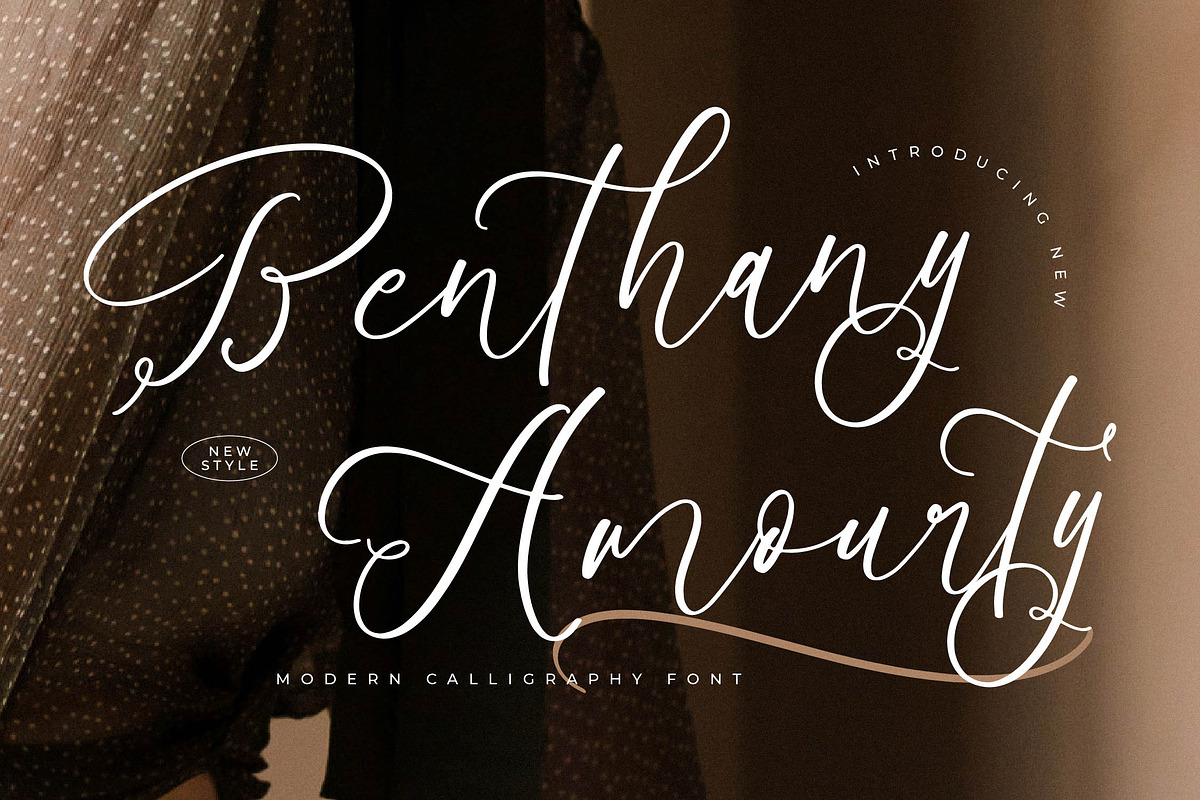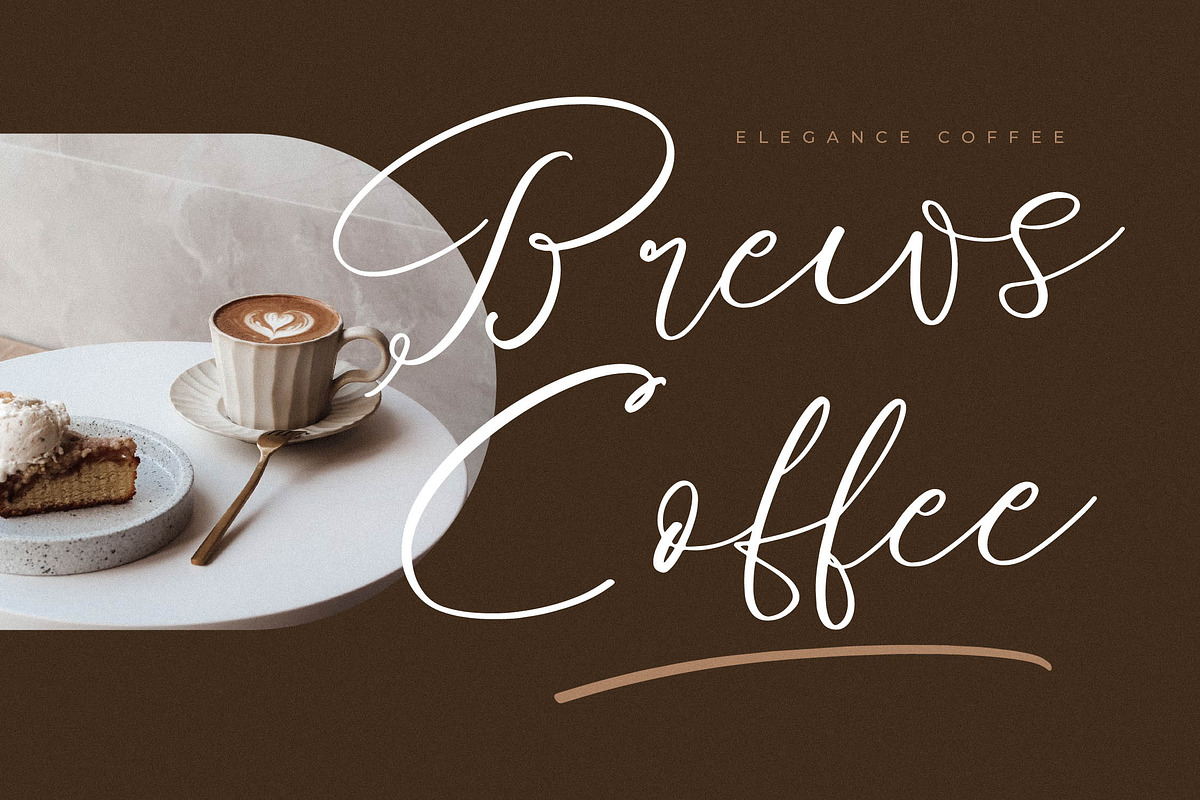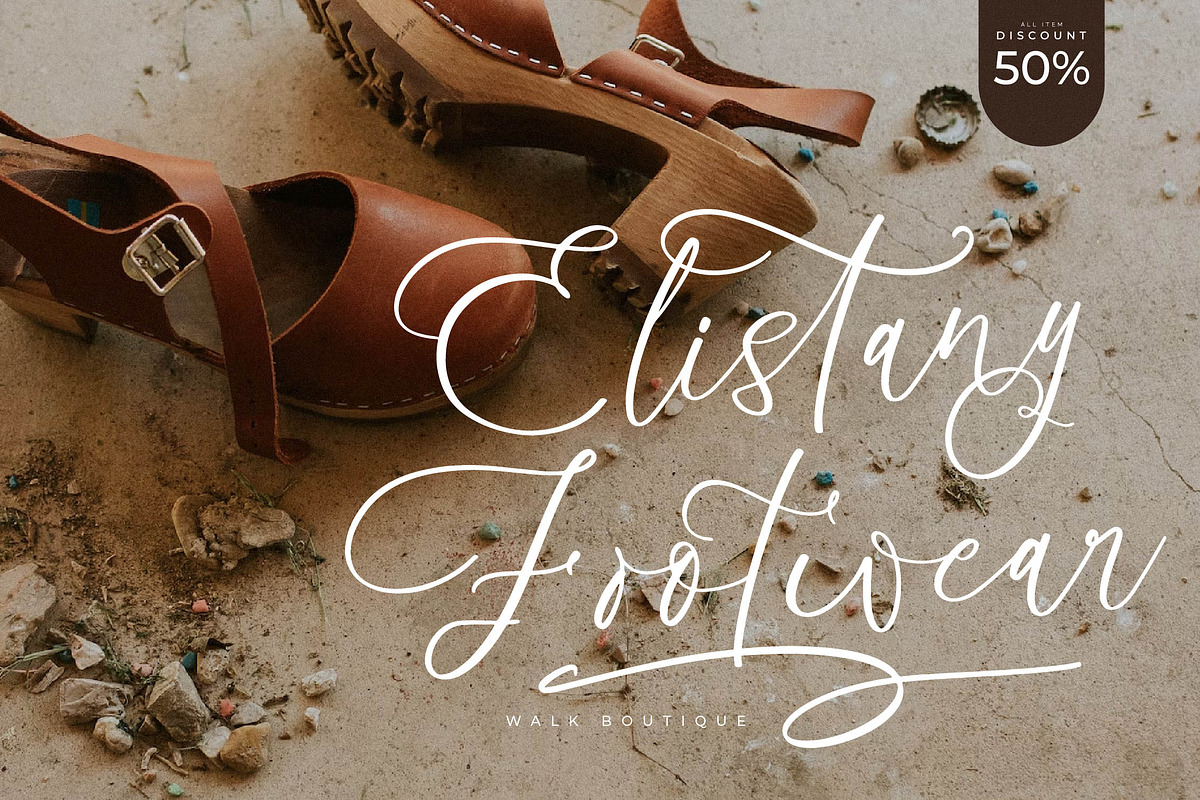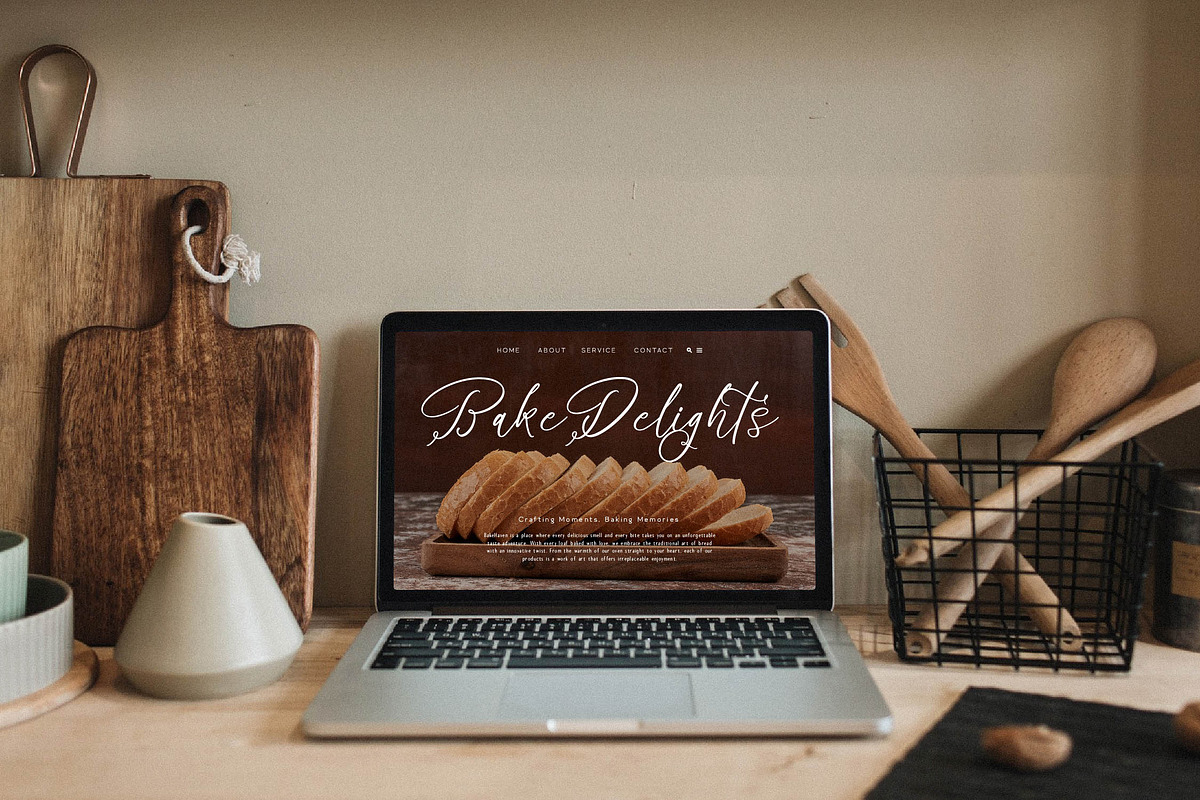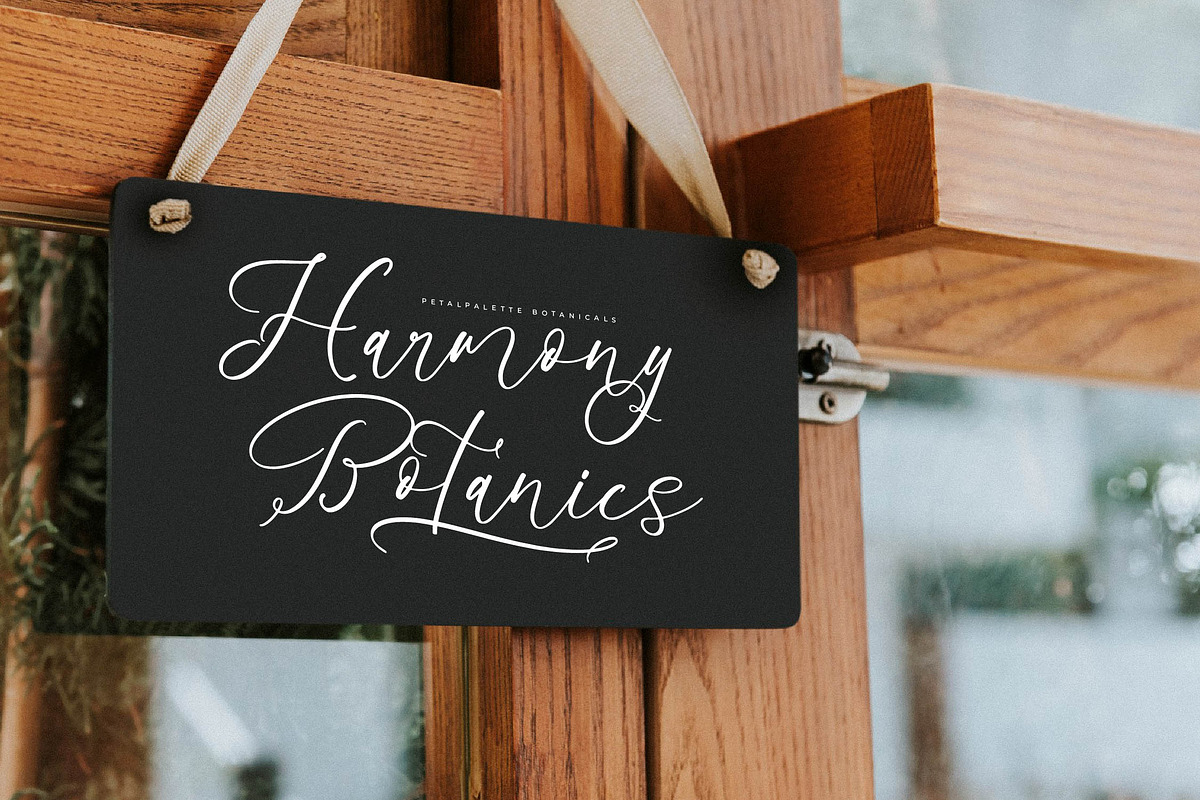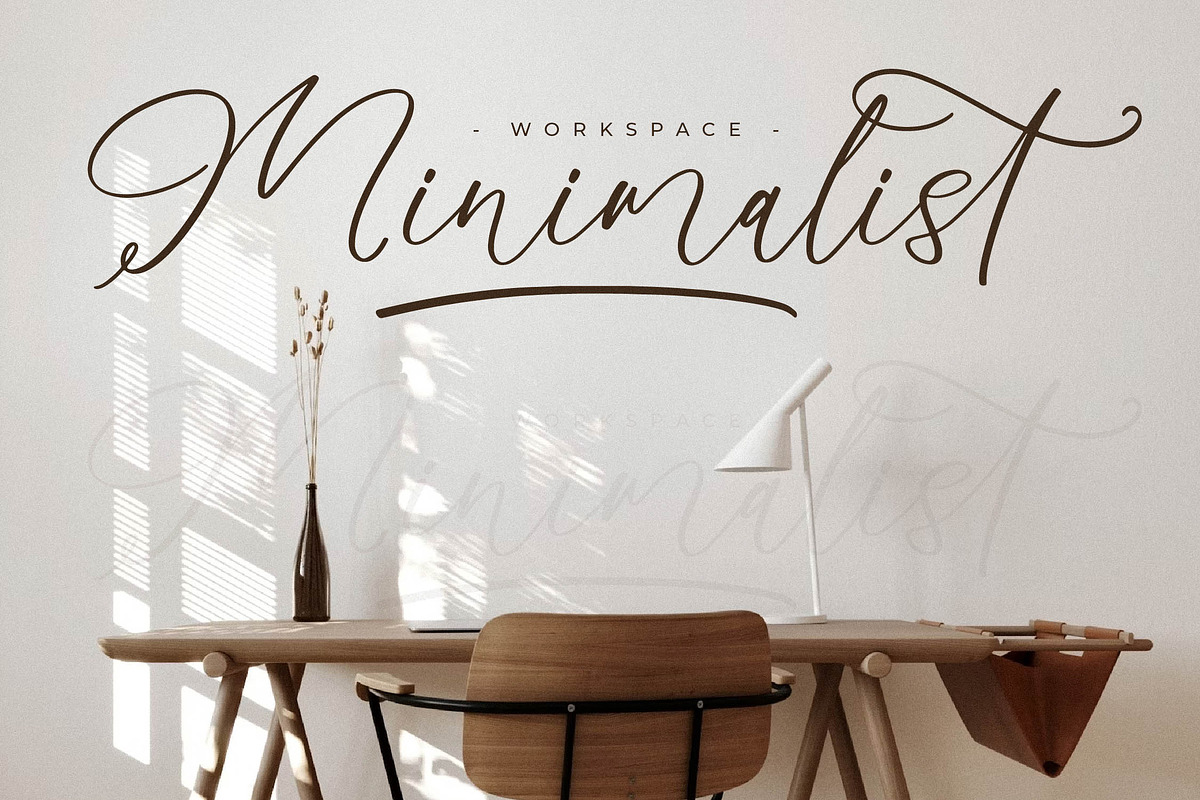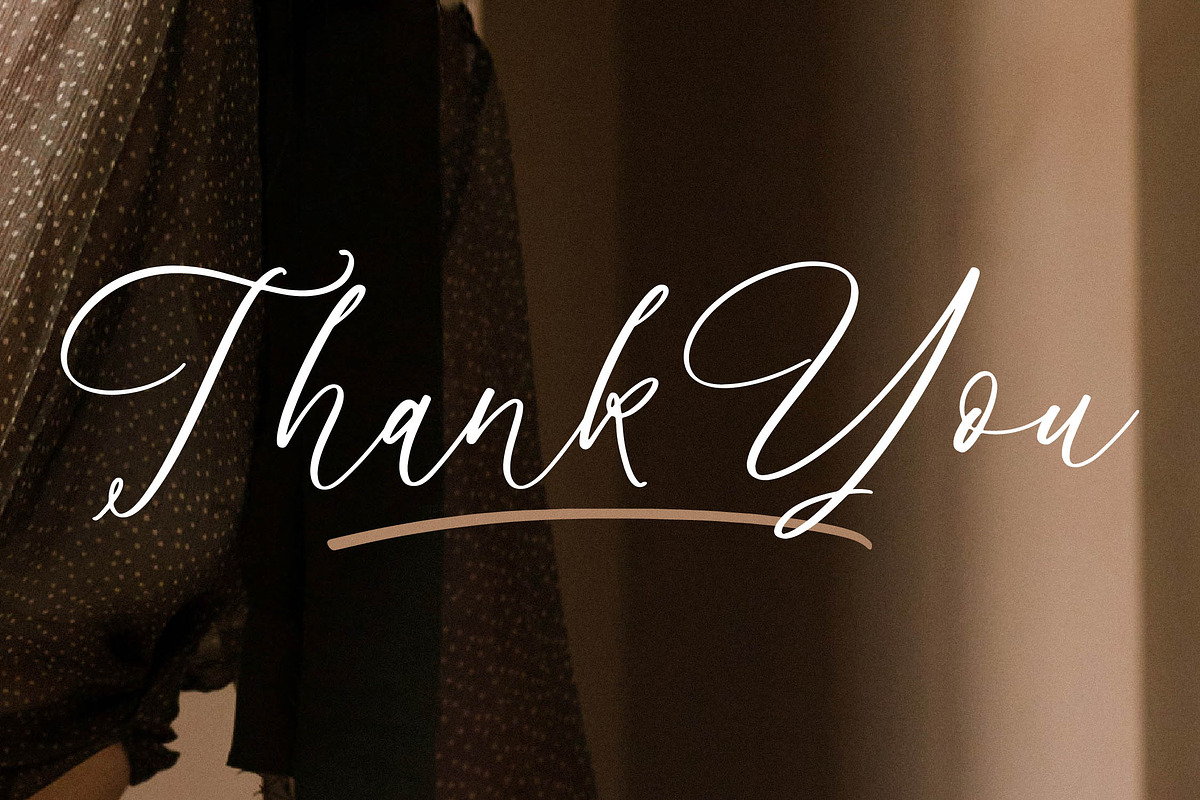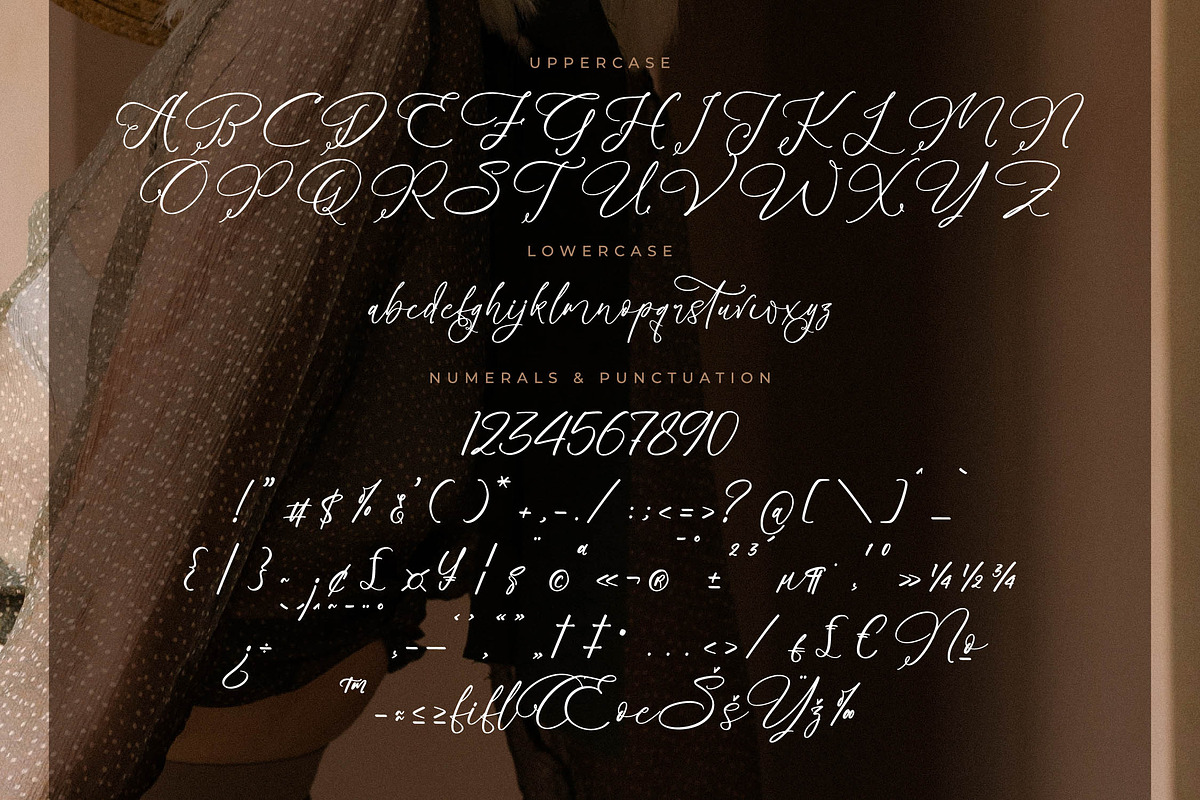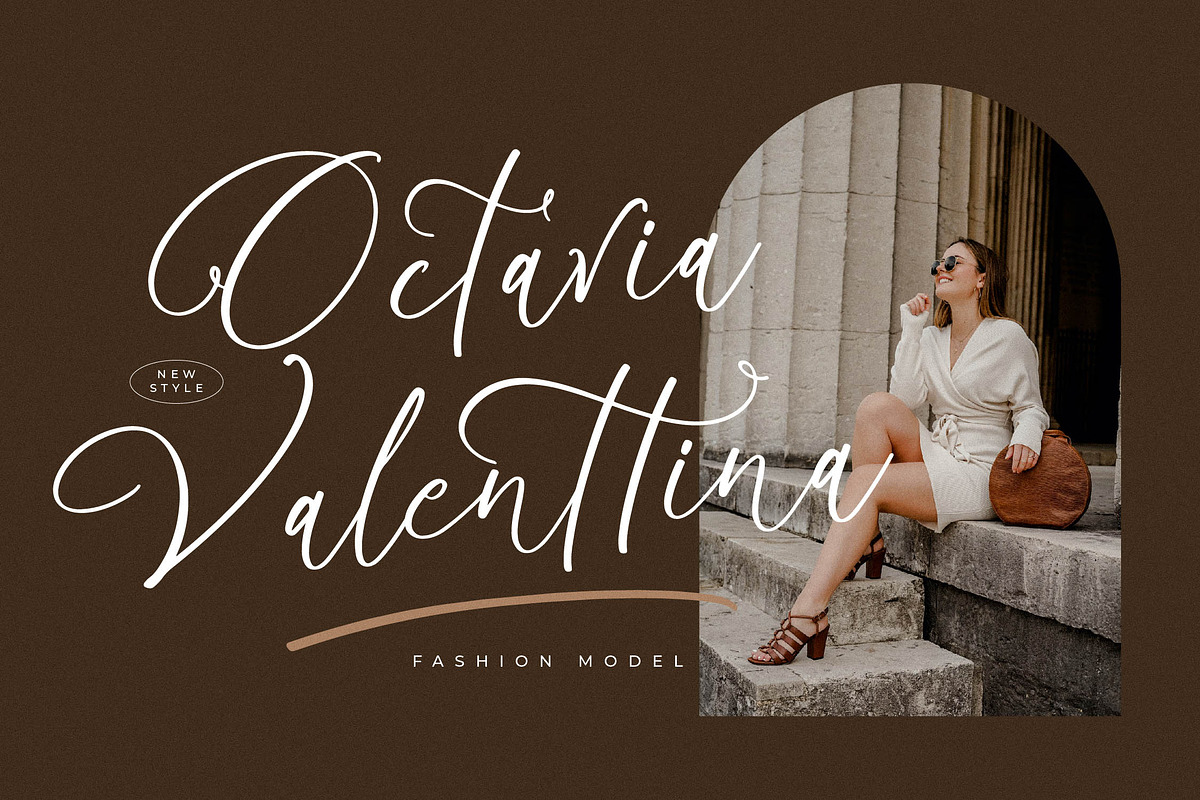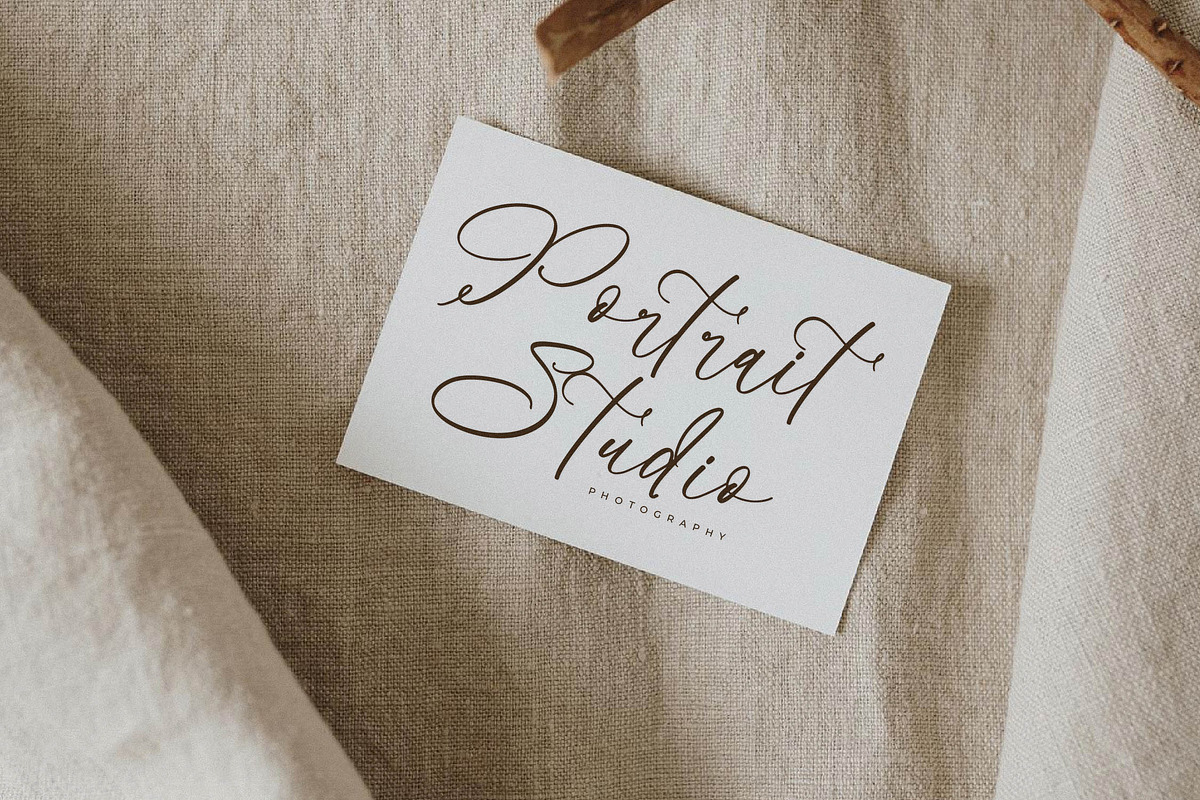
Benthany Amourty Modern Calligraphy
Benthany Amourty – Modern Calligraphy Font , from Glorytype Studio, suitable for any projects such as: logos, branding projects, homeware designs, product packaging, mugs, quotes, posters, shopping bags, t-shirts, book covers, name card, invitation cards, greeting cards, label, photography, watermark, special events, and all your other lovely projects that need a beautiful script taste.